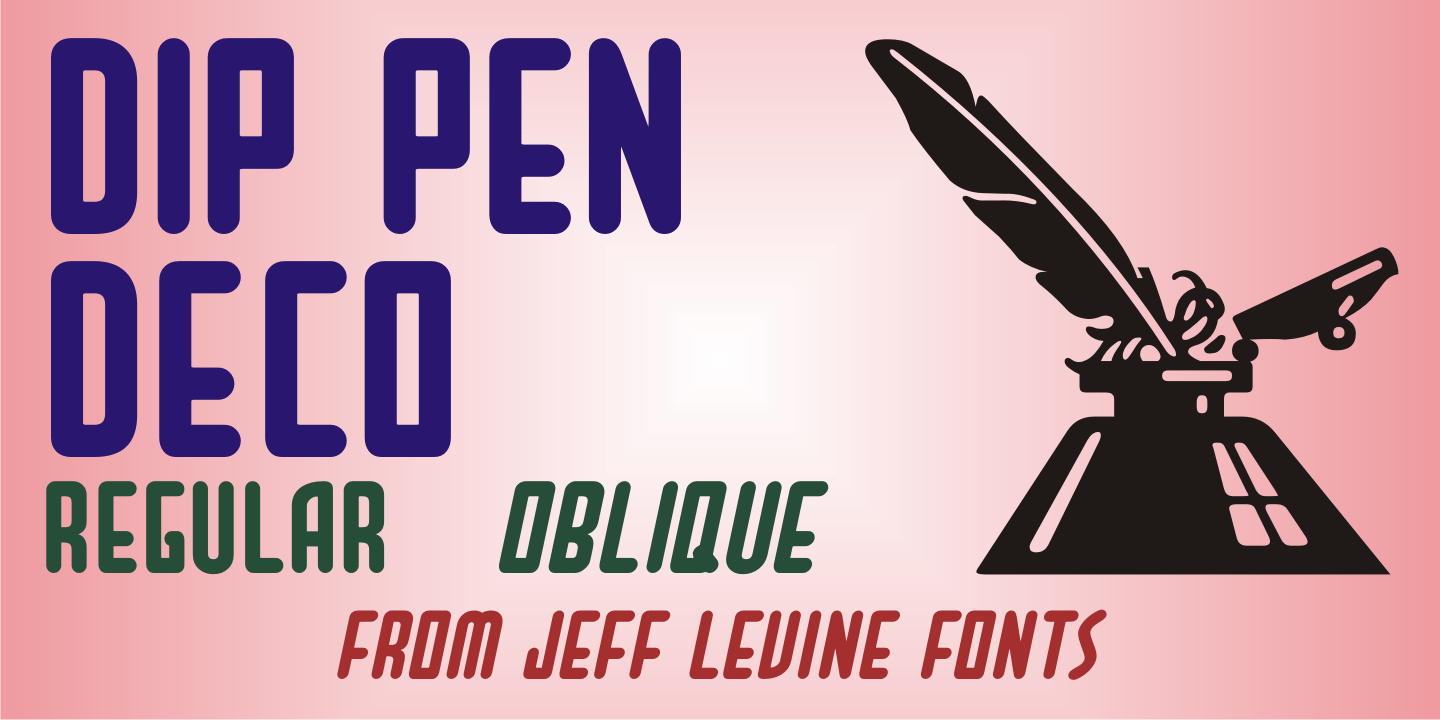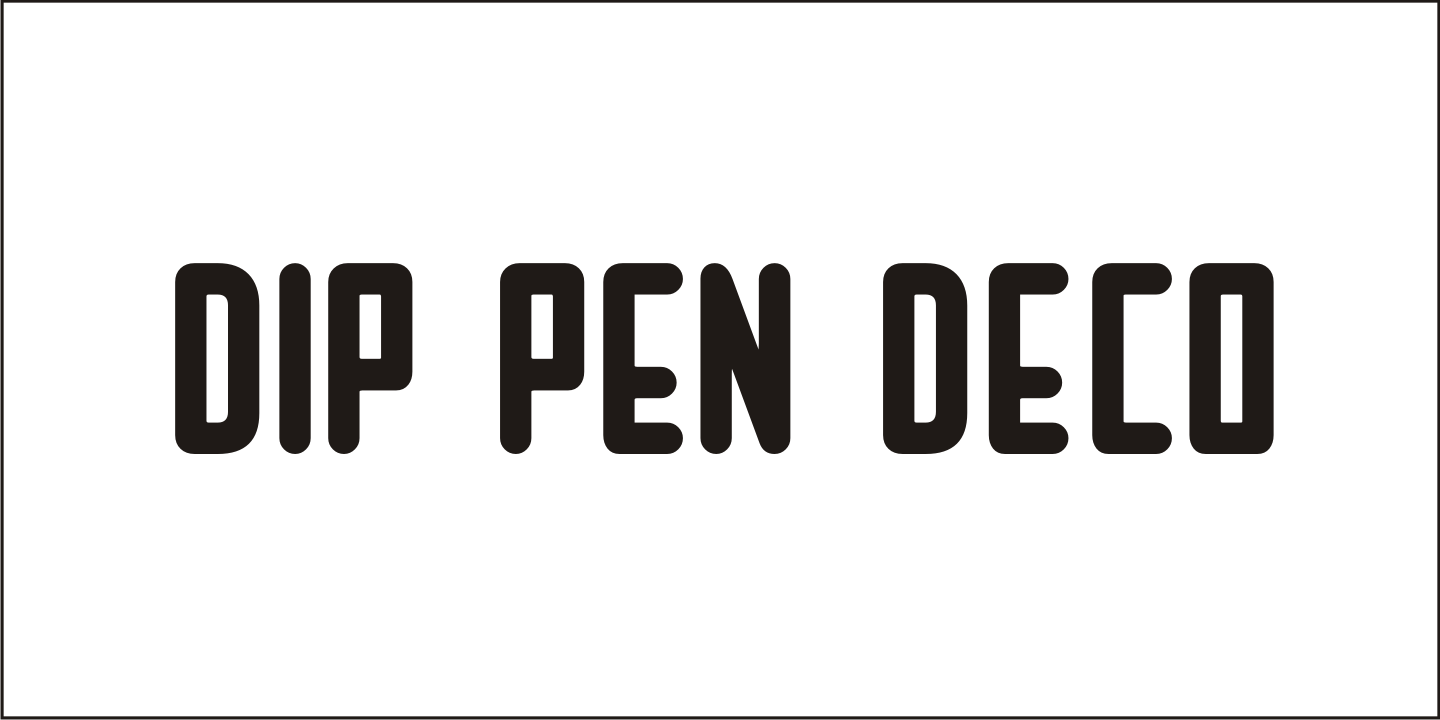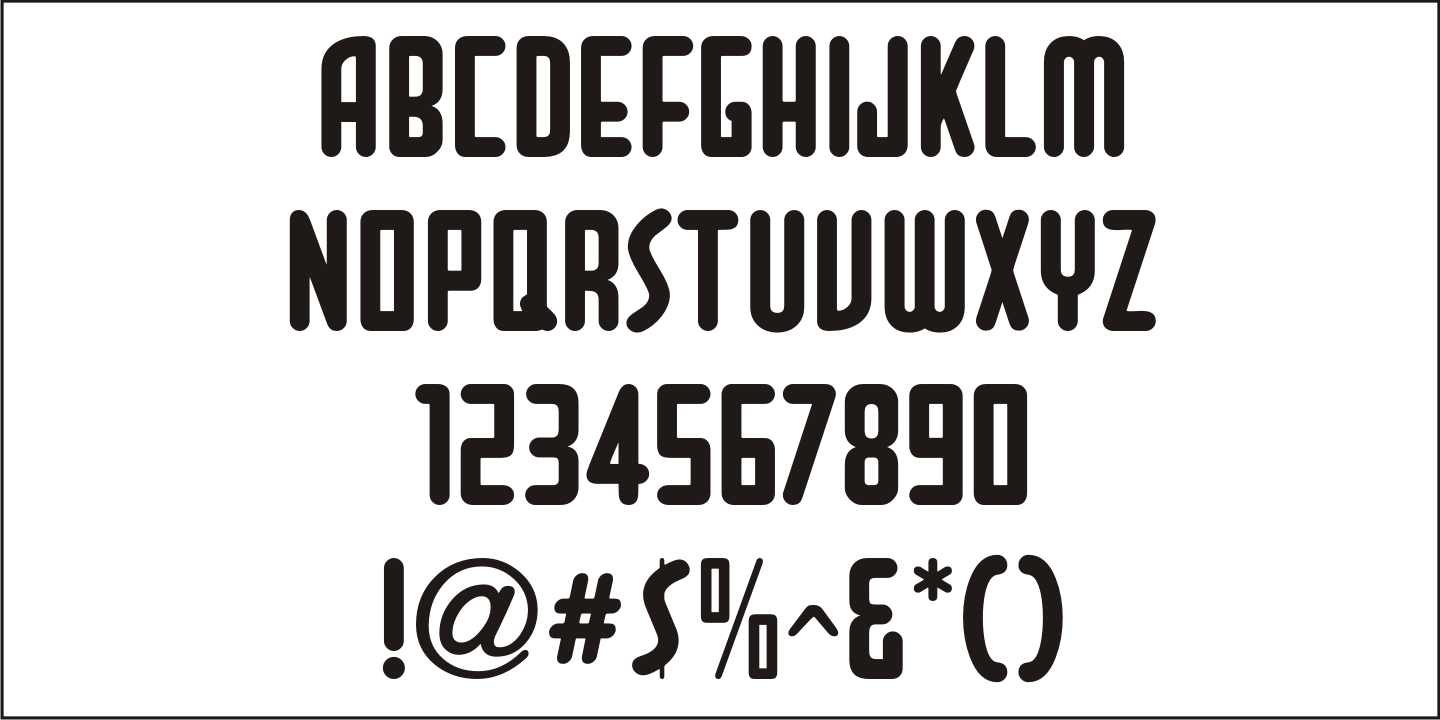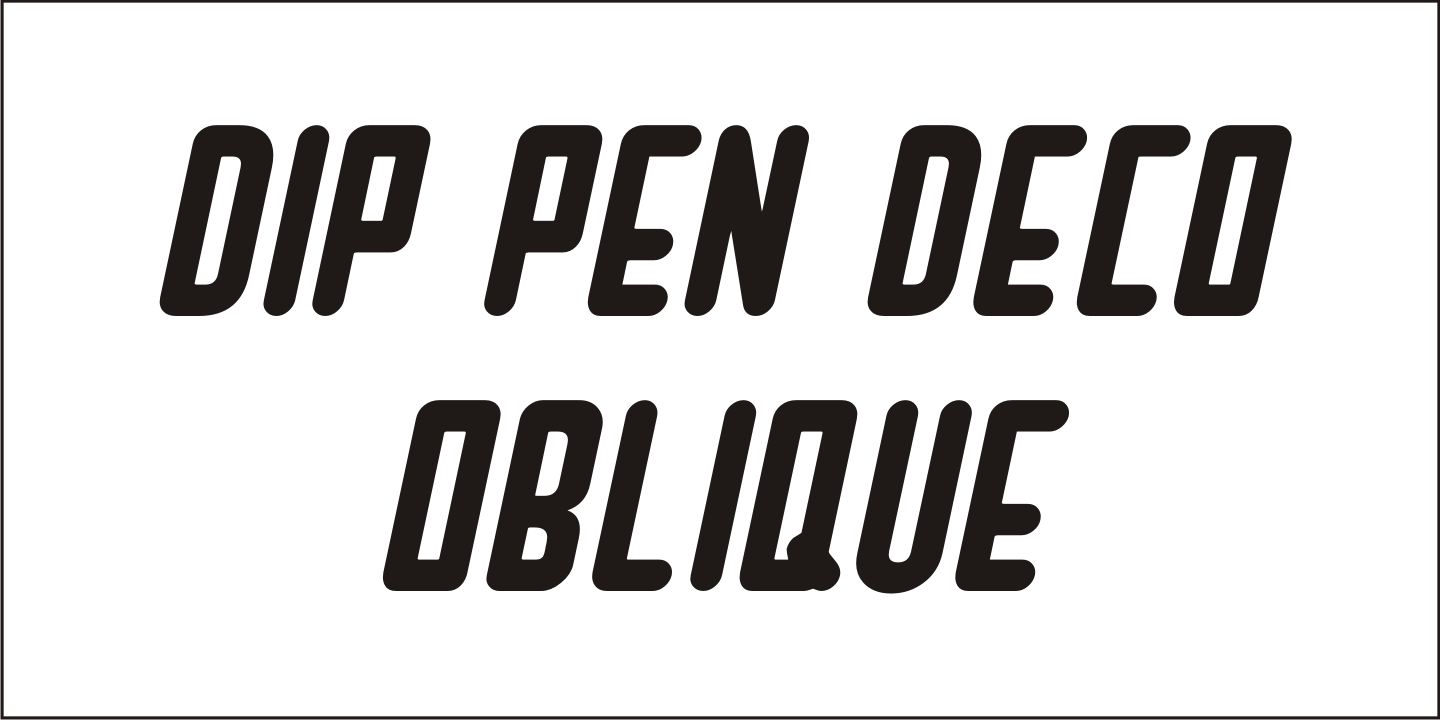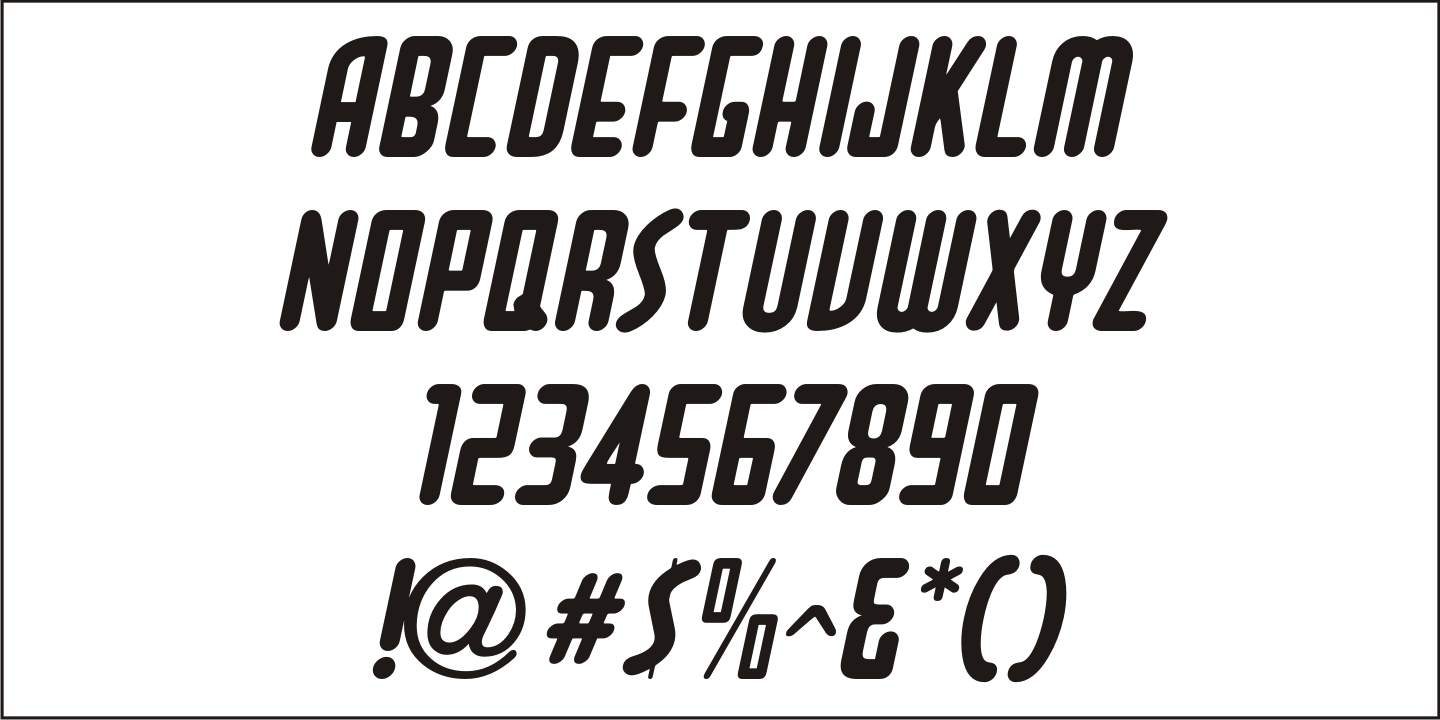
Dip Pen Deco
The hand lettered title on the cover of the 1938 sheet music for 'If It Rains – Who Cares” featured a condensed Art Deco typeface made with a round nib pen.
The square shaped characters with rounded corners were a perfect subject for a digital font revival, and are now available as Dip Pen Deco JNL, in both regular and oblique versions.